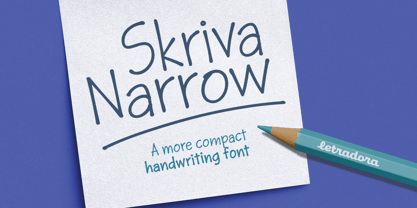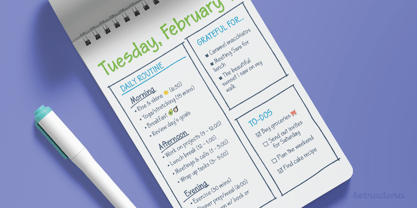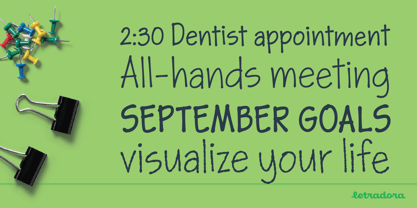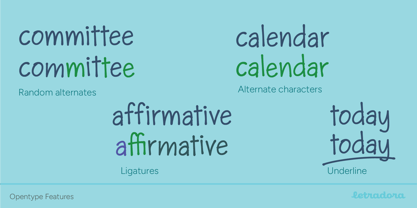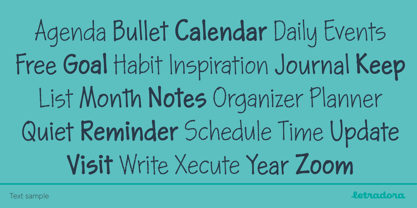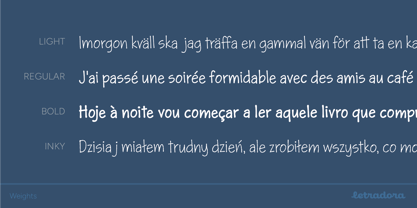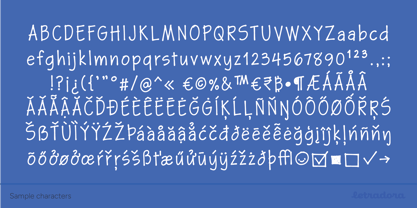
Skriva Narrow
by Letradora
The Skriva Narrow Font Family was designed by Kemie Guaida Ortega and published by Letradora. Skriva Narrow contains 4 styles and family package options.
Skriva Narrow is like Skriva’s cool, chill younger sibling! It keeps that neat and legible vibe we all love but rolls it out in a more condensed style. Perfect for when you wanna save space but still keep it looking sharp and personal.
It's got a super complete character set that covers over 200 Latin languages, so it’s got your back no matter what you’re writing. Plus, it comes packed with fun OpenType features, like random alternate characters, to keep things looking fresh and natural.
So if you need to add a personal touch to your texts without taking up too much room, Skriva Narrow is the way to go! It's great for giving your projects that extra bit of flair!
Kemie loves type and has been drawing letterforms and making fonts since 1998. She distributes her typefaces, mostly display and handwritten, under the Letradora foundry (formerly Pixilate). She believes no font is too simple to be well crafted and all letters deserve to be beautiful. She can be found at letradora.com or at Instagram at @letradora_fonts.